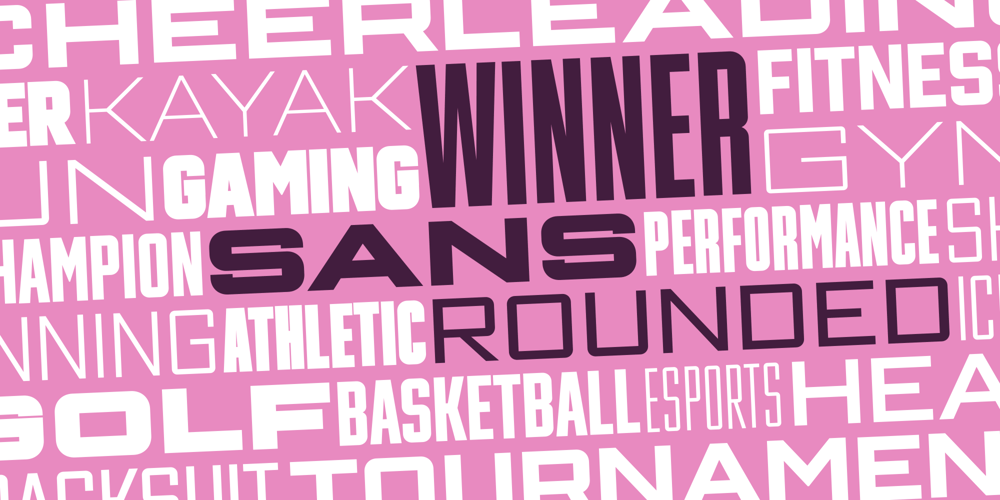
Winner Sans Rounded Font Family was designed by Christoph Koeberlin and published by sportsfonts. Winner Sans Rounded contains 49 styles and family package options. Just as great as our best selling Winner Sans typeface, only rounded instead of octagonal. Winner Sans Rounded supports not only most Latin-based languages but also Greek. Its extensive character set also contains currency signs, arrows, as well as a wide range of numerals from small figures to Roman numerals. Furthermore, its sophisticated OpenType layout features give you access to alternative letter shapes, fractions, tabular figures, and contextual alternates. With more than 24,000 glyphs in 49 fonts, Winner Sans Rounded leaves nothing to be desired.